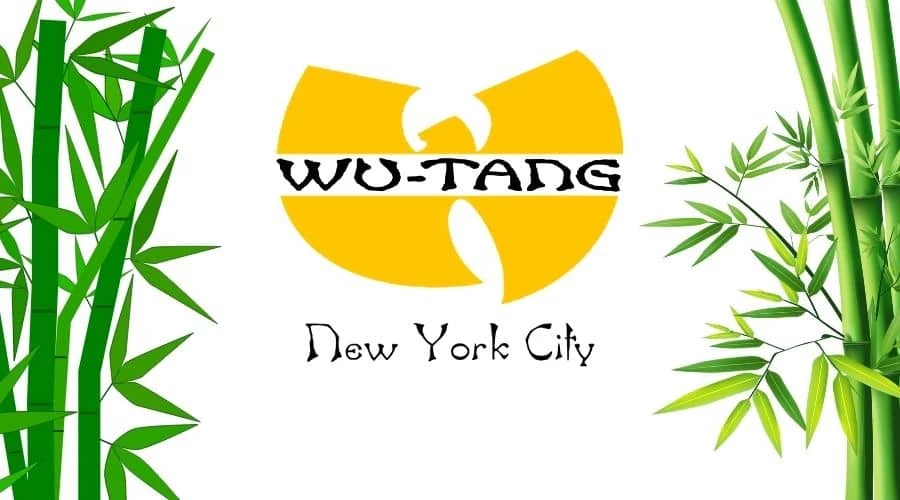
Welcome, Today we want to introduce you to the Wu Tang Font. Wu Tang Clan Logo features a W shape and strokes with the name in the middle. A similar Wu Tang font is the Bamboo Normal font, which Dan X. Solo designed.
Wu-Tang Clan is a rap group from New York. Wu-Tang originates from the martial arts film Shaolin and Wu-Tang, where warriors were trained to fight in the Wu-Tang kung fu style.
You can use this font for logos, movie posters, album covers, etc.
Ans: The Wu-Tang Logo font is the Bamboo Normal font.
Ans: Indie Flower – Google Fonts is the most similar Google font to the Wu-Tang Font.